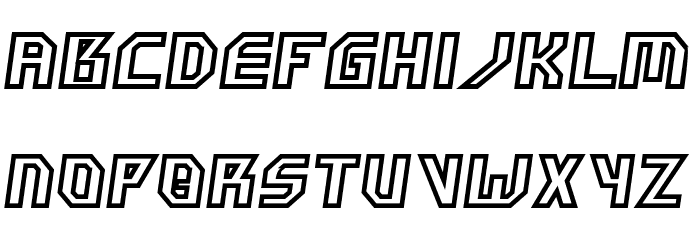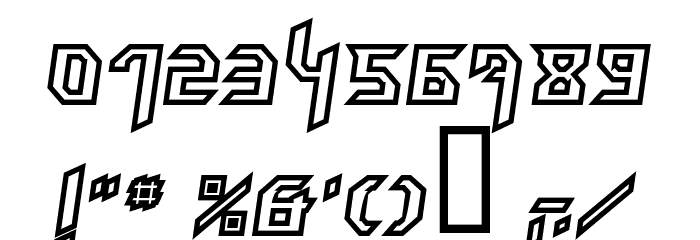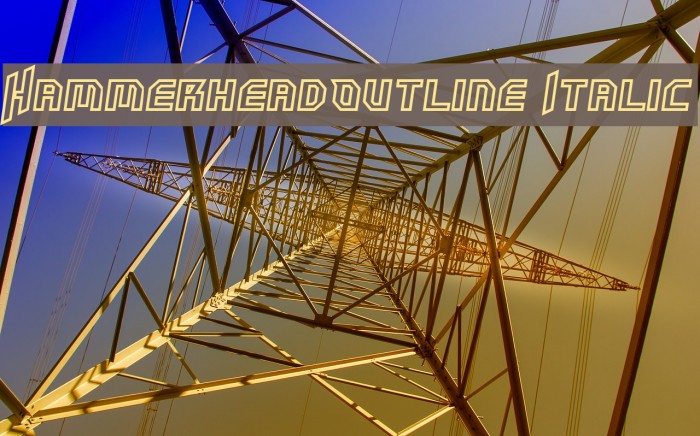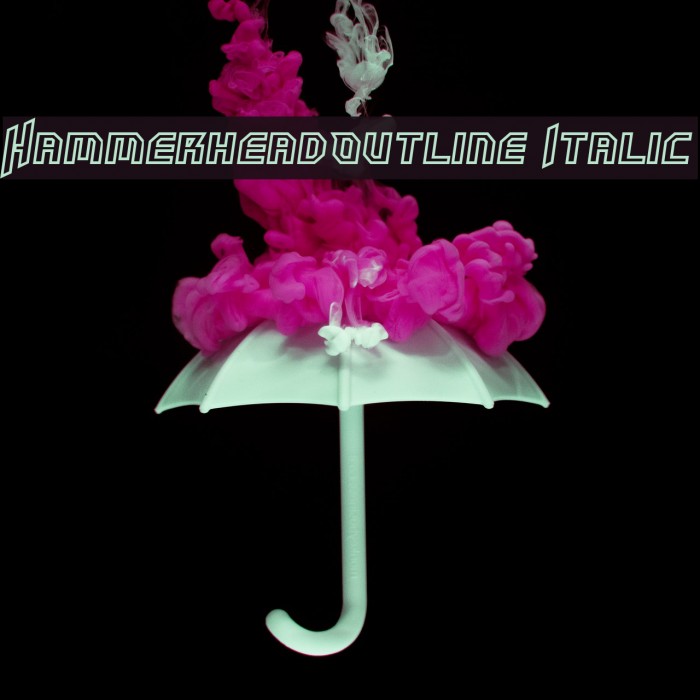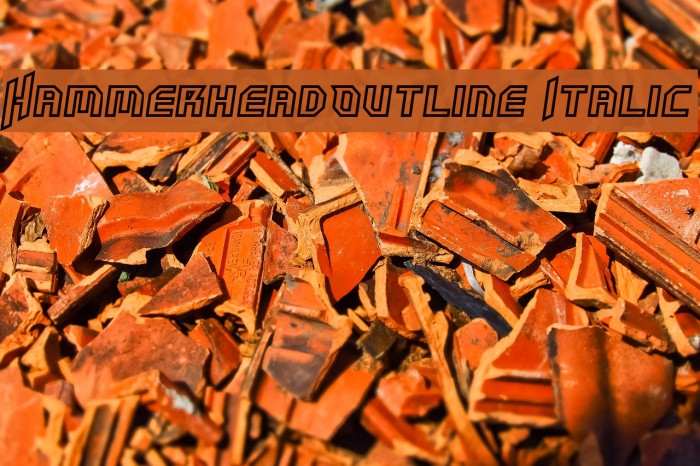
HammerheadOutline Italic Font
This font features a bold, angular design with an outline style that gives it a striking, modern appearance. The characters are sharply defined with a geometric structure, creating a sense of movement and energy. The italic slant adds a dynamic touch, enhancing its futuristic and edgy feel. Each letter is crafted with precision, maintaining a consistent outline thickness that emphasizes its boldness. The font's unique style makes it stand out, suitable for projects that require a strong visual impact.
A bold, angular outline font with a dynamic italic slant.
- Proposed Projects: Ideal for branding, posters, video game graphics, and any project needing a futuristic or edgy look.